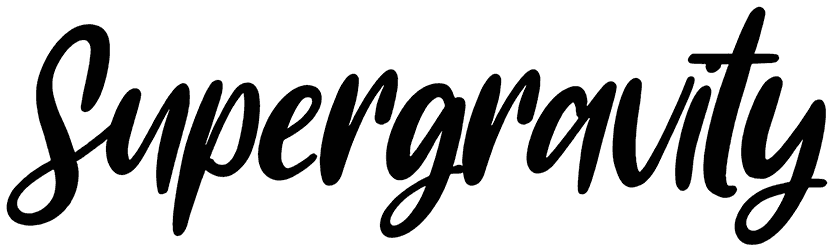
Supergravity Font
Customize your words with this modern handwritten font to convey a cool and urban vibe to your followers. The Supergravity font has a casual and cute vibe, and with all characters, you can set it for any short or long text. Give this postcard font a chance and set it for your new layouts, namely a flower shop, and impress your visitors.